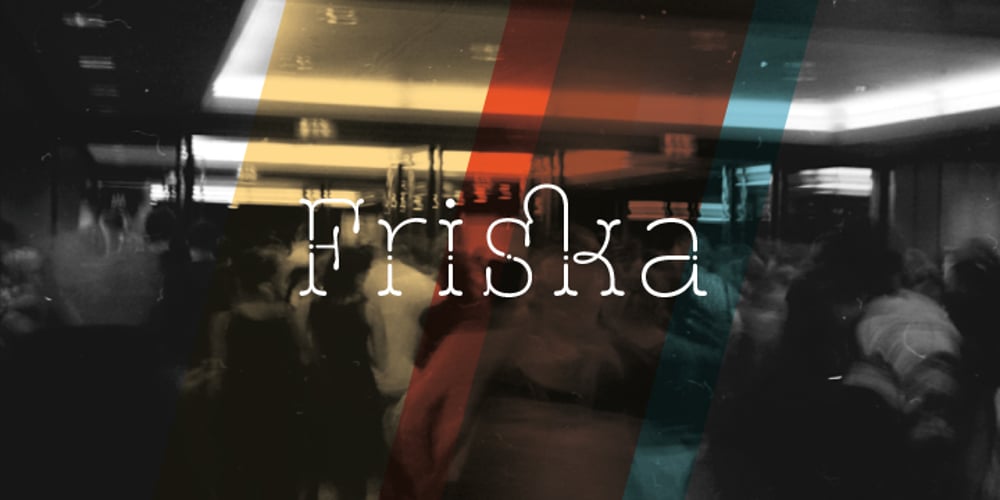
St Friska
St Friska font
St Friska Font Family was designed by Sascha Timplan and published by Stereotypes. St Friska contains 1 styles and family package options. St Friska, based on old movie title lettering, is made just for headlines. It comes with a slight touch and feeling of art deco but it’s designed to be contemporary in 2010 and beyond. Friska comes with a big bunch of OpenType features, so a designer can play with it like Lego, using it alongside old or new typefaces. It has stylistic sets and lots of ligatures.